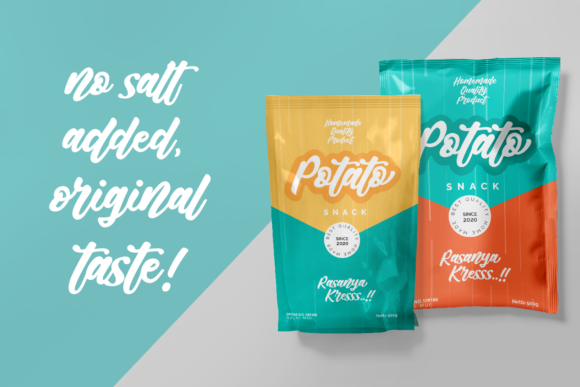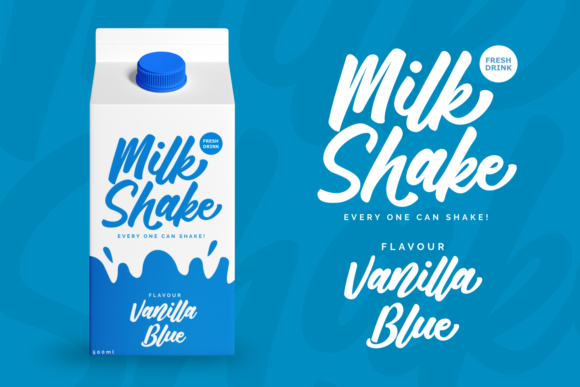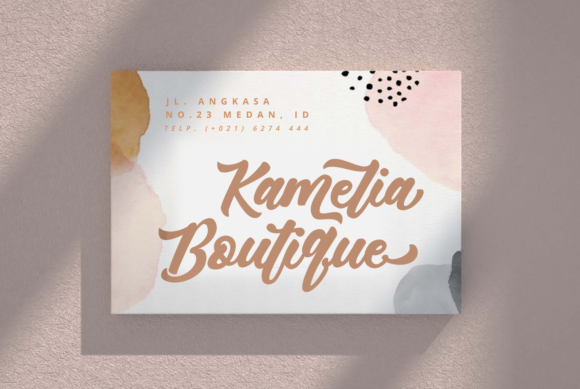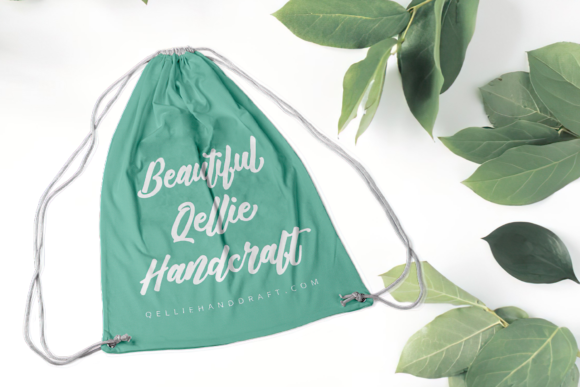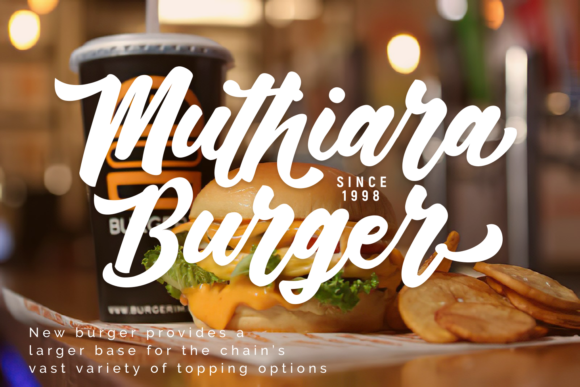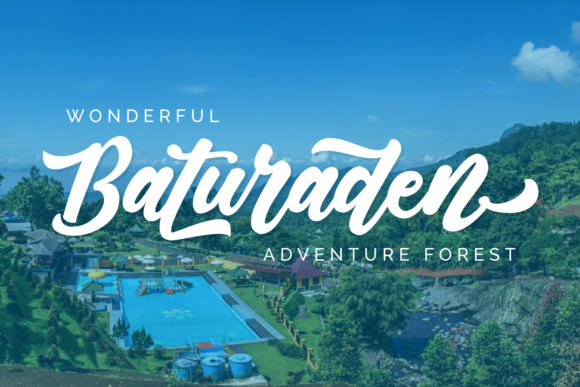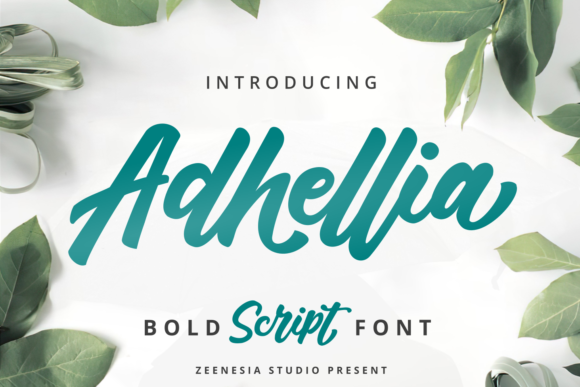
Introducing Adhellia Font: The Sweet and Brushed Handwritten Font
Are you a designer or crafter looking for a unique and elegant font to elevate your creative projects? Look no further than Adhellia Font, a sweet and brushed handwritten font that’s sure to make your designs come alive. In this article, we’ll dive into the features and benefits of Adhellia Font, and explore how it can add a touch of sophistication and whimsy to your work.
What is Adhellia Font?
Adhellia Font is a beautiful, handwritten font that’s perfect for a variety of design projects, from invitations and greeting cards to branding and packaging. This font is designed to have a soft, brushed look that’s both feminine and elegant. With its flowing lines and delicate curves, Adhellia Font is sure to add a touch of whimsy and charm to your designs.
Assertive and Flowing: The Unique Characteristics of Adhellia Font
Adhellia Font is characterized by its assertive and flowing lines, which give it a sense of movement and energy. The font’s brush-like strokes and subtle imperfections add a touch of handmade charm, making it perfect for designs that require a personal and human touch. Whether you’re creating a logo, invitation, or social media graphic, Adhellia Font is sure to make your design stand out.
Adhellia Font is a versatile font that’s perfect for a wide range of design projects, from digital designs to print materials. Designers and crafters will love the font’s flexibility and creative possibilities, making it ideal for:
- Branding and packaging
- Logos and wordmarks
- Stationery and journals
Why Choose Adhellia Font?
So why choose Adhellia Font for your design projects? Here are just a few reasons:
- Unique and elegant design: Adhellia Font has a distinctive, hand-brushed look that’s sure to make your designs stand out.
- Flexible and versatile: Adhellia Font is perfect for a wide range of design projects, from digital designs to print materials.
In conclusion, Adhellia Font is a beautiful, sweet, and brushed handwritten font that’s perfect for designers and crafters looking to add a touch of elegance and whimsy to their designs. With its PUA encoding, assertive and flowing lines, and versatile design, Adhellia Font is sure to make each of your creations come alive. Whether you’re creating invitations, branding materials, or social media graphics, Adhellia Font is a great choice for any design project.